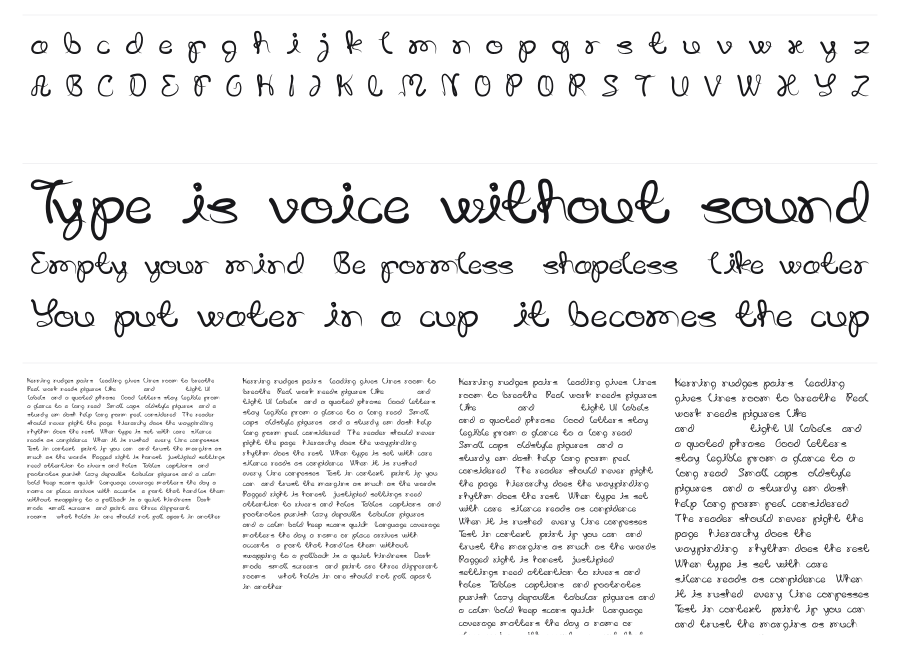
Savior Light Our Way
Savior Light Our Way is a thin, curly handwritten face from weknow with looping letterforms that feel spontaneous and a little eccentric. The strokes are light and playful, with decorative flourishes that give each word a sense of movement without becoming unreadable. It fits naturally into invitations, greeting cards, and creative branding where you want something that feels personal and quirky rather than polished.